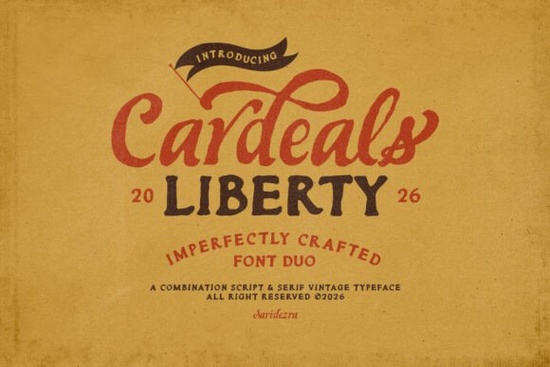
If you're looking for a bold, hand-drawn font that feels personal and grounded not overly polished or digital Cardeals Font is worth your attention. It’s a two-font set: one expressive script with stylistic alternates and underline options, and one clean, slightly irregular sans-serif companion. Together, they give you flexibility without sacrificing cohesion. Designers working on branding, crafters making greeting cards or wall art, and small business owners building a warm, approachable visual identity often find this kind of imperfect-but-intentional texture especially useful.
What makes Cardeals feel “hand-drawn” in practice?
It’s not just about wobbly lines. The imperfections are subtle but consistent slight variations in stroke weight, uneven baseline alignment, and natural entry/exit strokes in the script. These details mimic how real ink behaves on paper: pressure changes, slight hesitations, organic flow. That’s why it works so well for logotypes where you want to signal authenticity, like a local bakery, handmade soap brand, or independent bookshop. You’ll notice it especially when pairing the script with its sans-serif partner there’s enough contrast to create hierarchy, but both share the same relaxed rhythm.
How do the alternates and underline options help in real projects?
The script includes multiple letterforms for common characters (like a, g, t, and y), letting you avoid repetition in longer words or headlines. This keeps text feeling alive rather than robotic even at smaller sizes. The underline isn’t just a straight line; it curves gently and varies in thickness, echoing the script’s movement. Use it sparingly over a single word in a quote poster, or beneath a shop name on a sticker to add emphasis without shouting. It’s more expressive than standard underlines, less decorative than flourishes.
Is Cardeals suitable for multilingual work?
Yes it supports Latin-based languages including Spanish, French, Portuguese, German, Dutch, and Swedish, with full diacritic coverage (á, ñ, ü, ø, etc.). That makes it practical for designers creating bilingual packaging, educators designing classroom posters in dual-language schools, or print-on-demand sellers targeting international markets. You won’t need to swap fonts mid-sentence or compromise on accents.
Where does Cardeals fit alongside other hand-drawn styles?
Unlike tightly spaced calligraphy fonts or ultra-thin signature scripts, Cardeals sits comfortably between structure and spontaneity. If you’ve used free-flow handwriting fonts before, you’ll appreciate how Cardeals gives you more control over spacing and rhythm. For those who lean into signature-style fonts, Cardeals offers similar personality but with better readability at medium sizes ideal for product labels or social media banners. And if you’ve worked with authentic calligraphy fonts, you’ll recognize the care in stroke variation, though Cardeals avoids the formality that can feel stiff in casual contexts.
It also pairs surprisingly well with beauty-focused script fonts think spa branding or cosmetics packaging because its warmth reads as caring, not clinical. And teachers or homeschoolers using classroom-friendly script fonts may find Cardeals a fresh alternative for bulletin board headers or student award certificates: friendly but still distinct enough to hold attention.
- Try setting your headline in the script version first, then switch to the sans-serif for body copy it’s designed to complement, not compete.
- Test legibility at your intended size: Cardeals shines at 24pt and up for display use, but stays readable down to ~16pt in tight layouts.
- Because of its hand-drawn nature, avoid stretching or distorting the letters let the built-in imperfections do the work.
If you’re already using script fonts regularly, Cardeals is a thoughtful addition not a replacement, but a reliable option when you need something bolder, warmer, and quietly intentional.